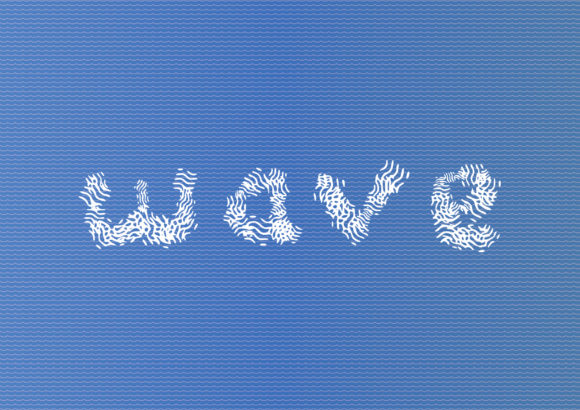
The Blue Wave Font: A Designer’s Delight
Have you ever been in the middle of a crafting project, and suddenly, you’re stuck on finding the perfect font? I certainly have! It was a sunny Saturday afternoon, and I was working on a DIY wedding invitation for a friend. I had the design all planned out, but something was missing. That’s when I stumbled upon the Blue Wave Font. It was like a ray of sunshine – or should I say, a wave of creativity! 🌊
Let’s dive right into the good stuff! Here’s what I love about Blue Wave Font:
- ✨ Unique and eye-catching: This display font adds a splash of movement to any project, making it perfect for crafty designs, invitations, and more.
- ✅ Easy to read: Despite its wavy design, Blue Wave Font remains clear and legible, even in smaller sizes.
- 🌈 Versatile: This font can be used for a wide range of projects, from DIY crafts to commercial designs.
Now, let’s talk about a few quirks:
- 🤔 Limited use in body text: Due to its display nature, Blue Wave Font might not be the best choice for lengthy paragraphs.
- ⚠️ Some glyphs may require manual adjustment: As with any font, you might need to tweak certain characters to get the perfect fit.
The Story Behind Blue Wave Font
Blue Wave Font was designed with the creative hobbyist in mind. Its creator, a passionate typographer, wanted to craft a font that would add a splash of movement and energy to any design. Inspired by the ocean’s waves, this font is perfect for crafty projects, DIY enthusiasts, and designers looking for a unique touch.
| What type of projects is Blue Wave Font best suited for? | Blue Wave Font is perfect for crafty designs, DIY projects, invitations, and other creative endeavors that require a unique touch. |
| Is Blue Wave Font suitable for body text? | While Blue Wave Font is primarily designed for display use, it can be used for short paragraphs or titles. However, it’s not recommended for lengthy body text. |
| Does Blue Wave Font support OpenType features? | Yes, Blue Wave Font supports OpenType features, including stylistic alternates and glyphs. |